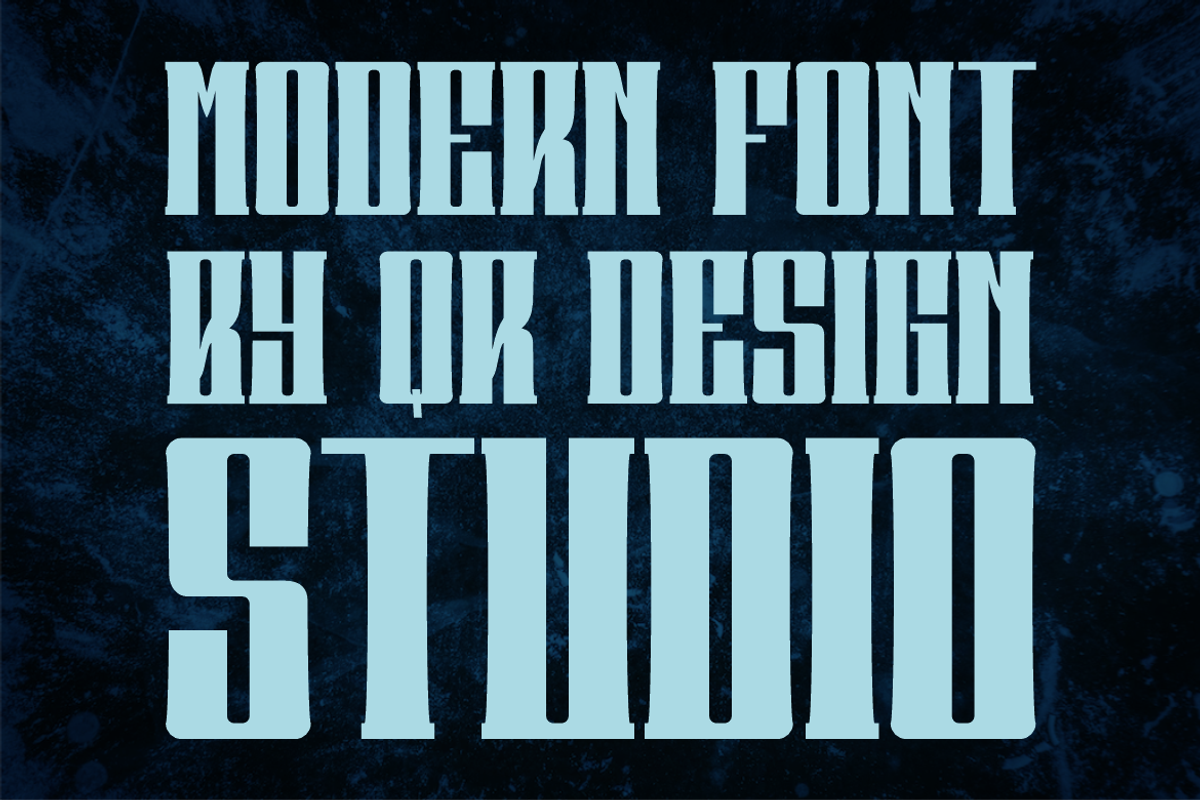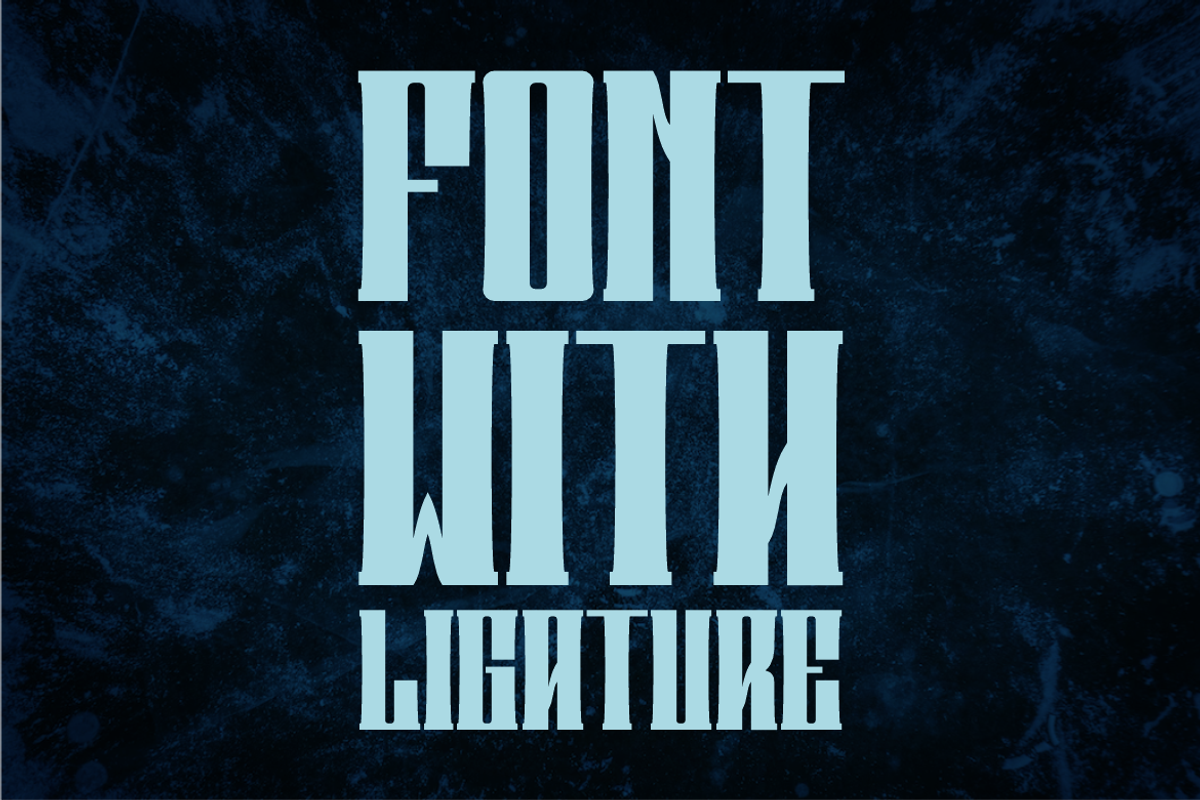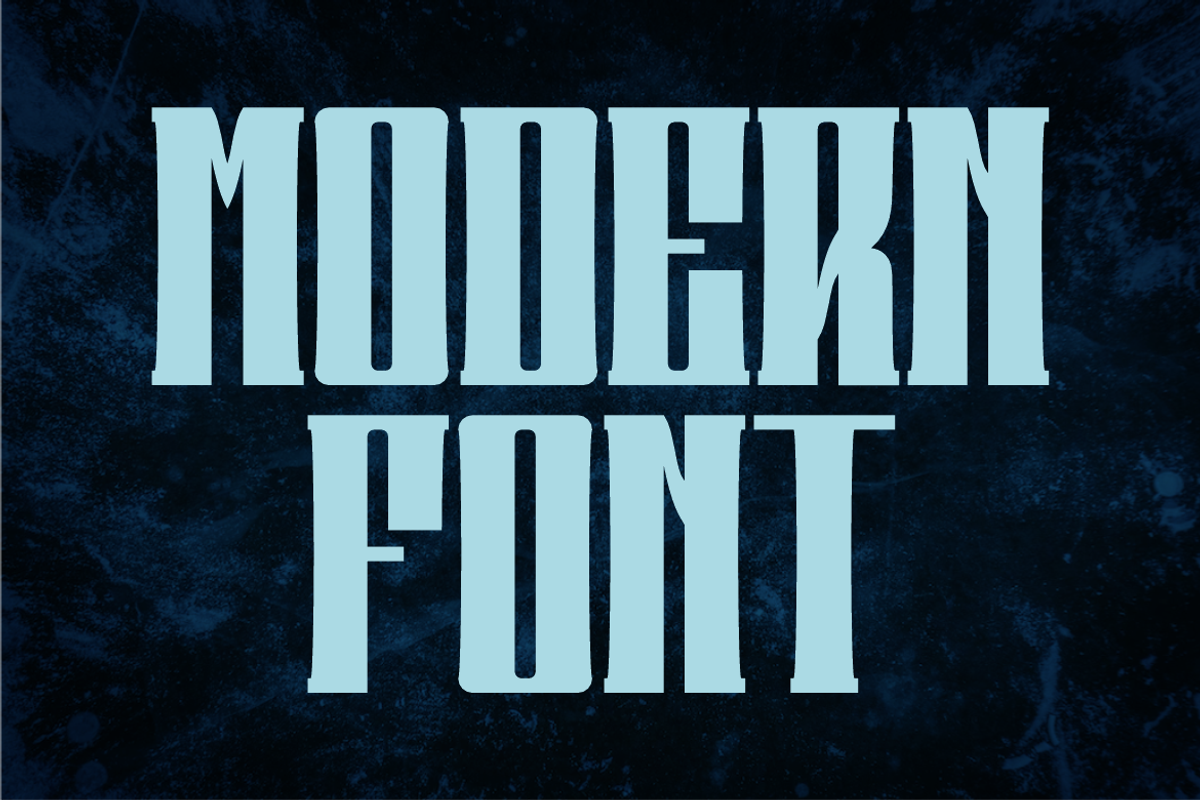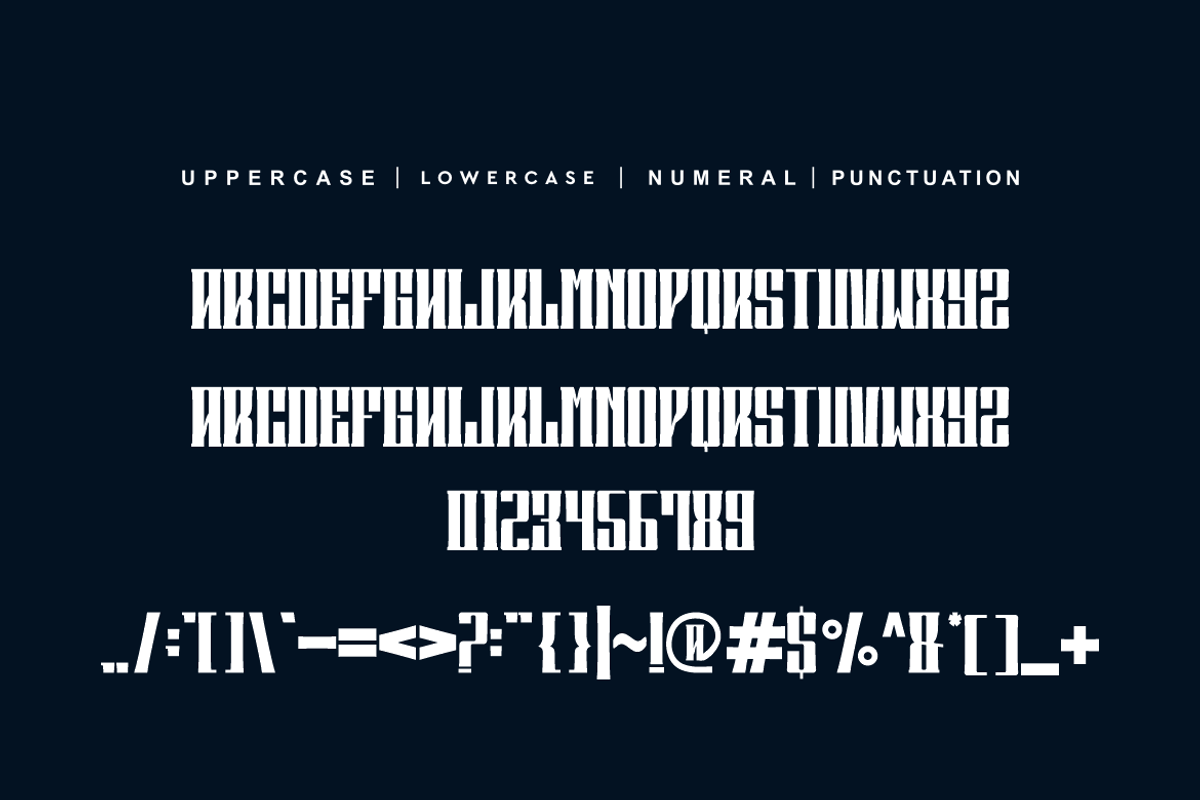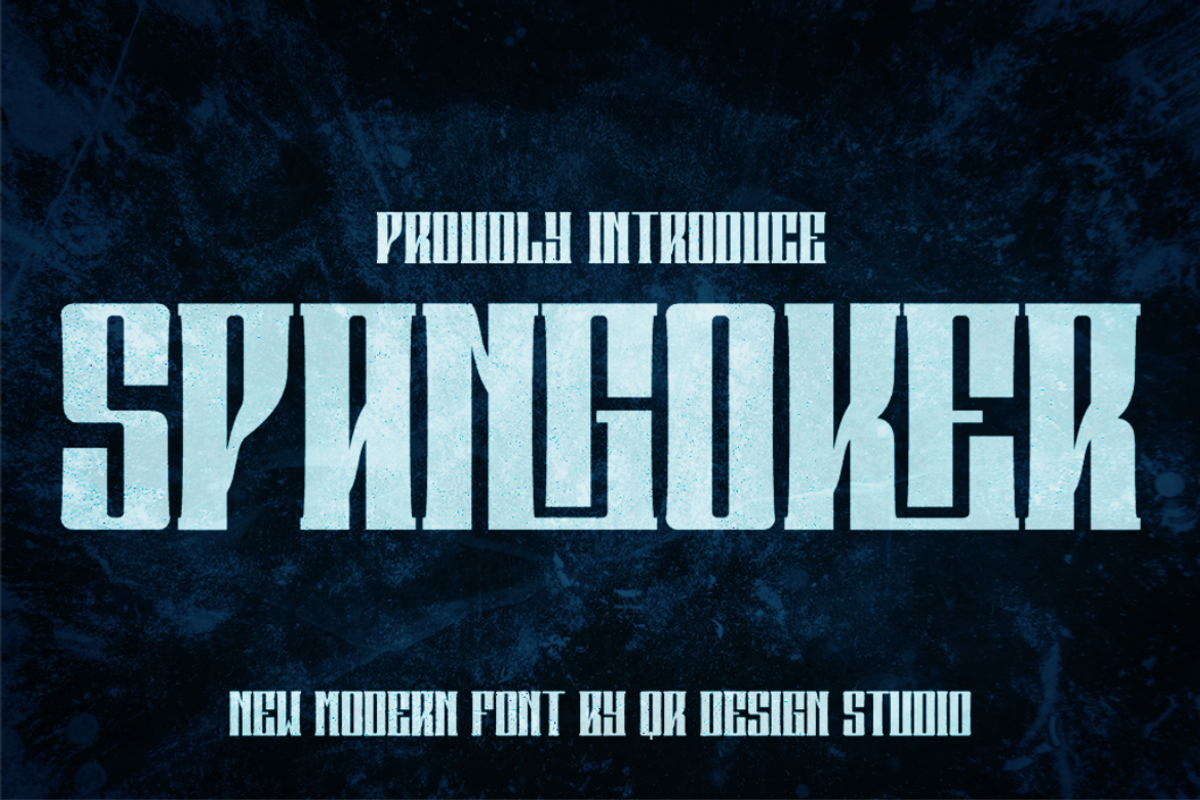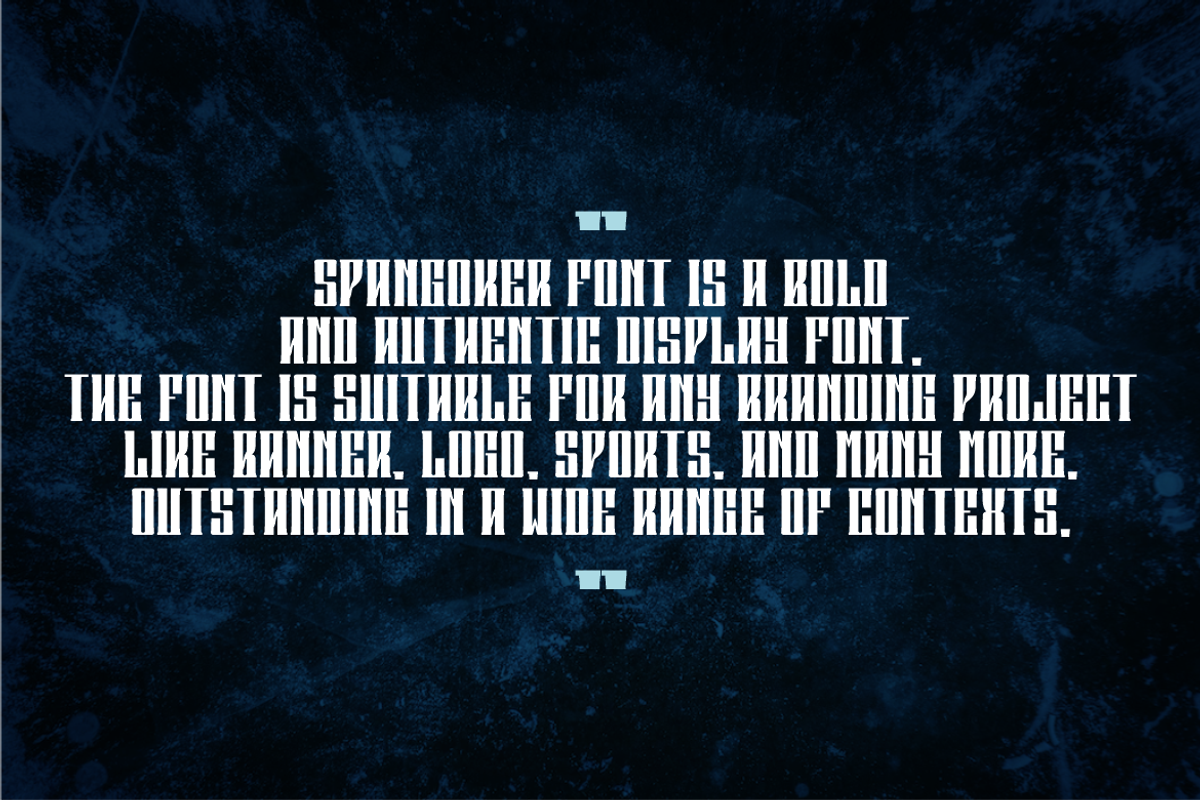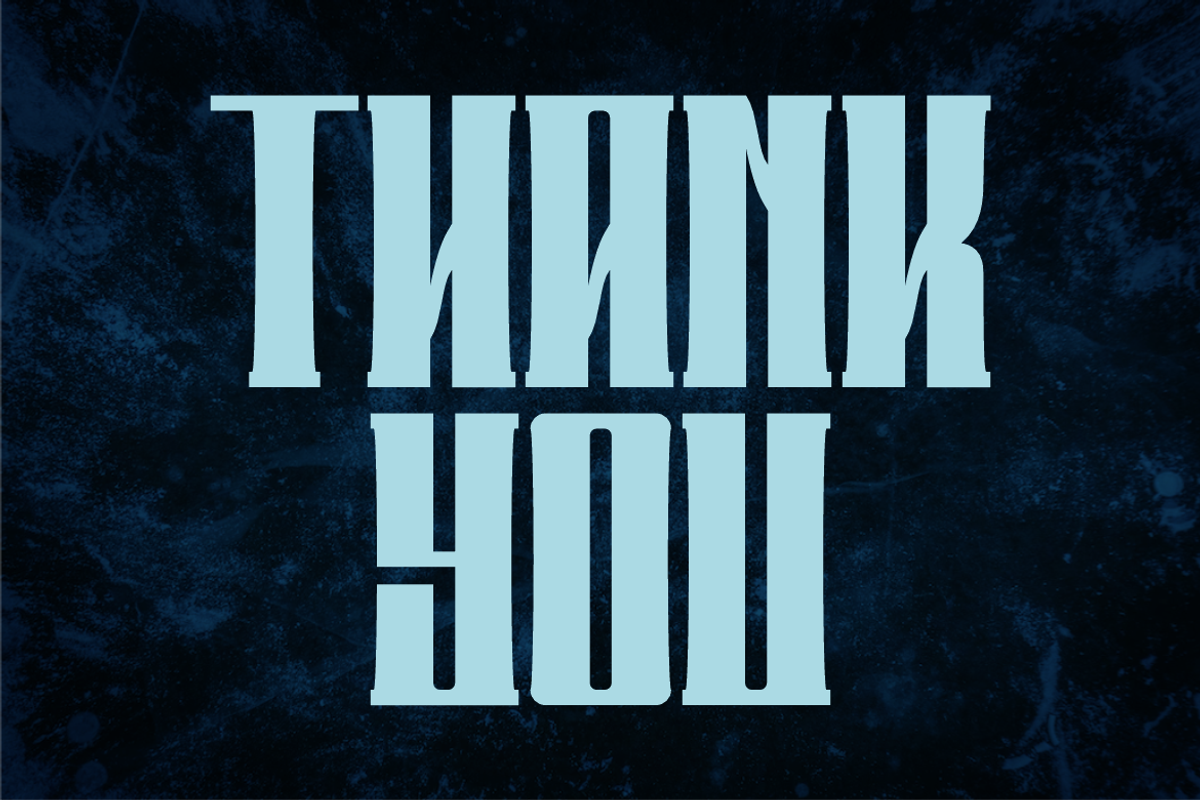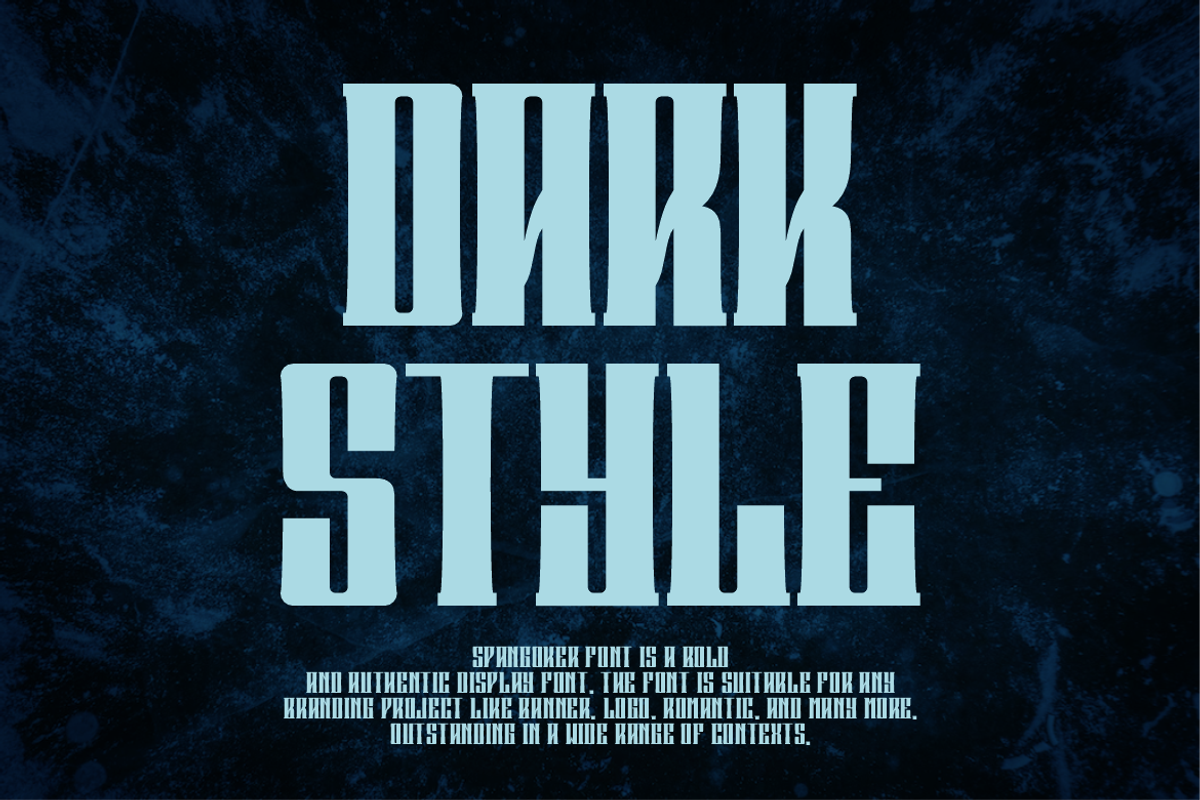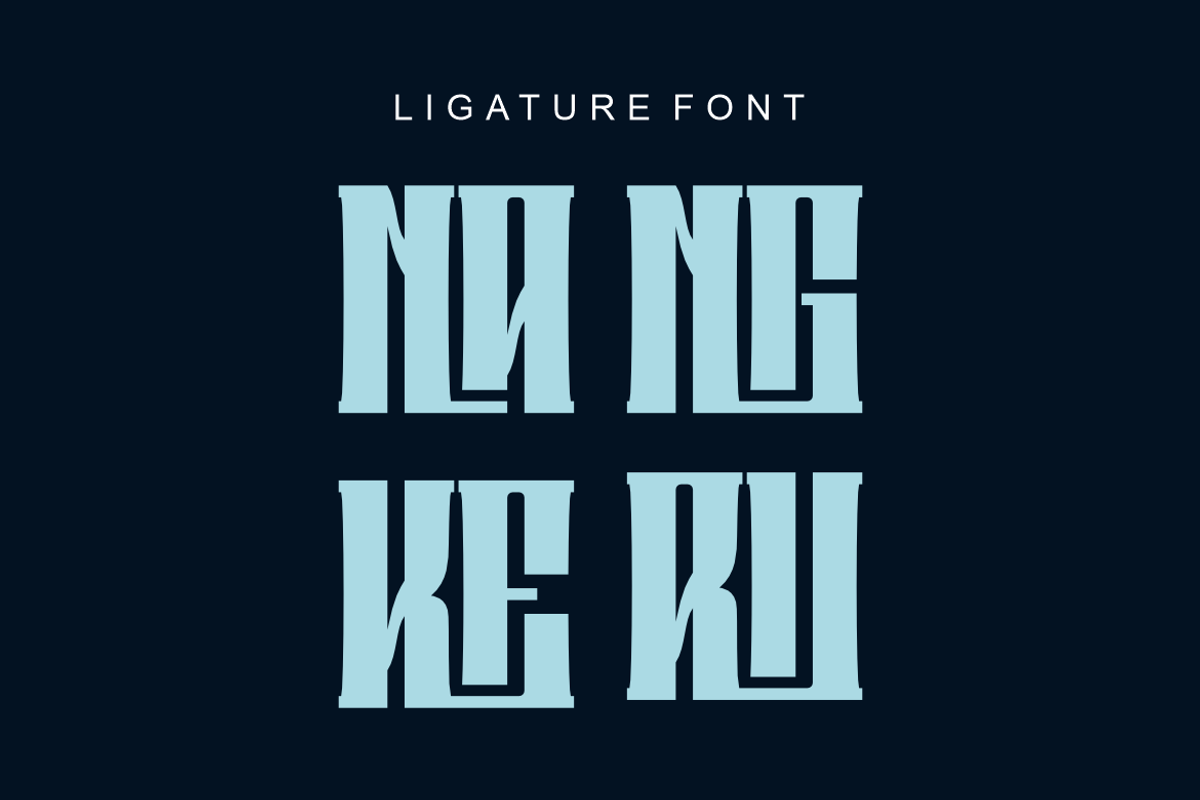
Spangoker
Spangoker Font is a bold and authentic display font. The font is suitable for any branding project like logo, sport, and many more. Outstanding in a wide range of contexts.